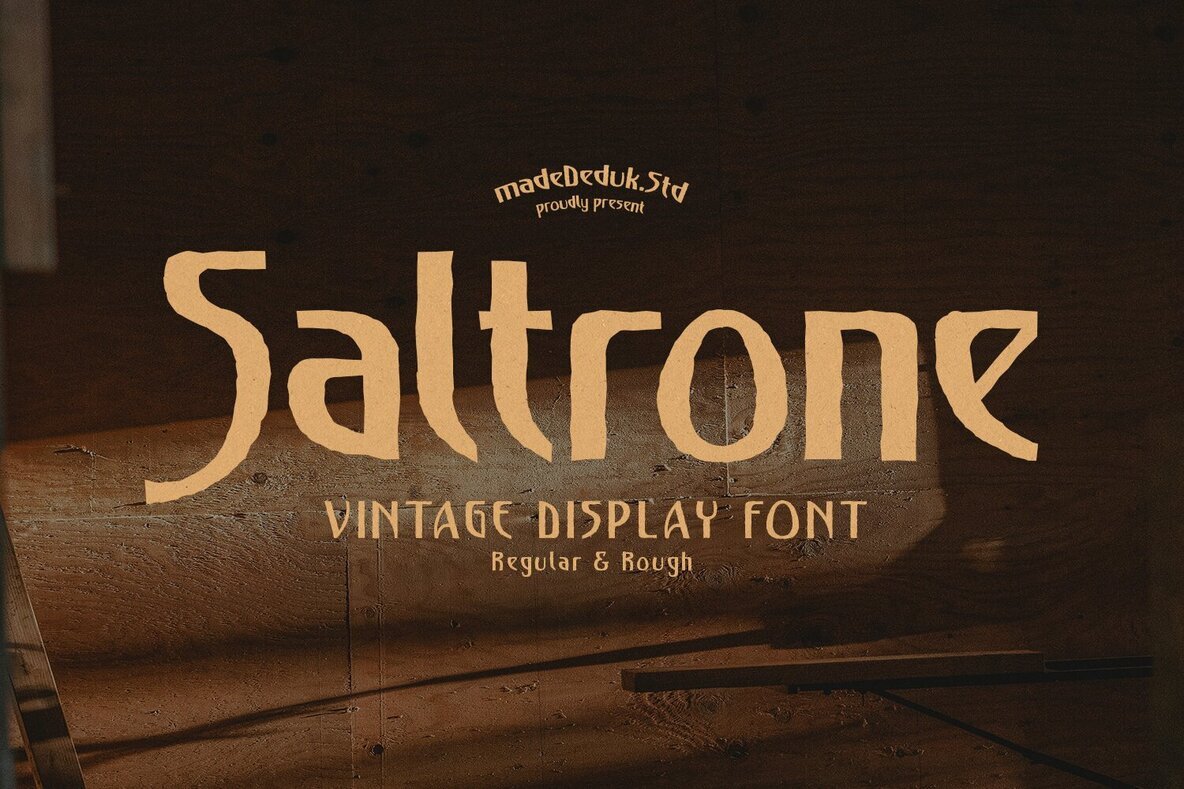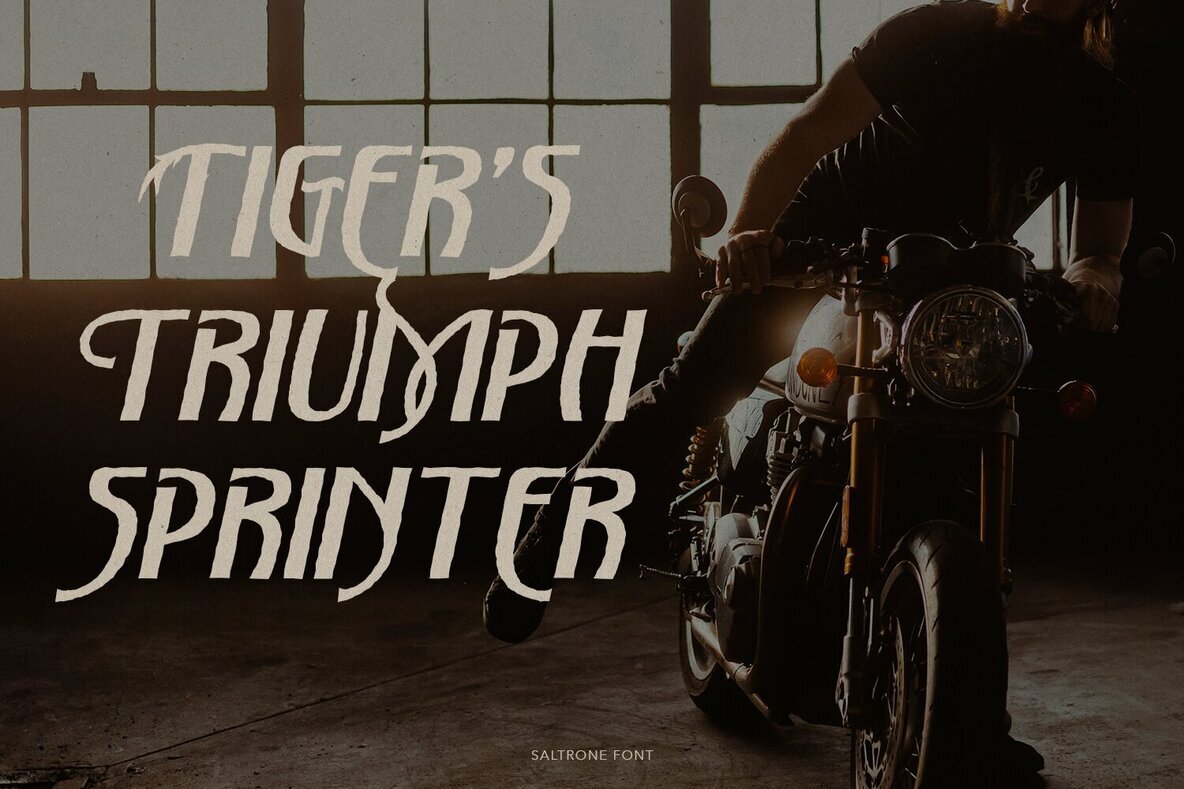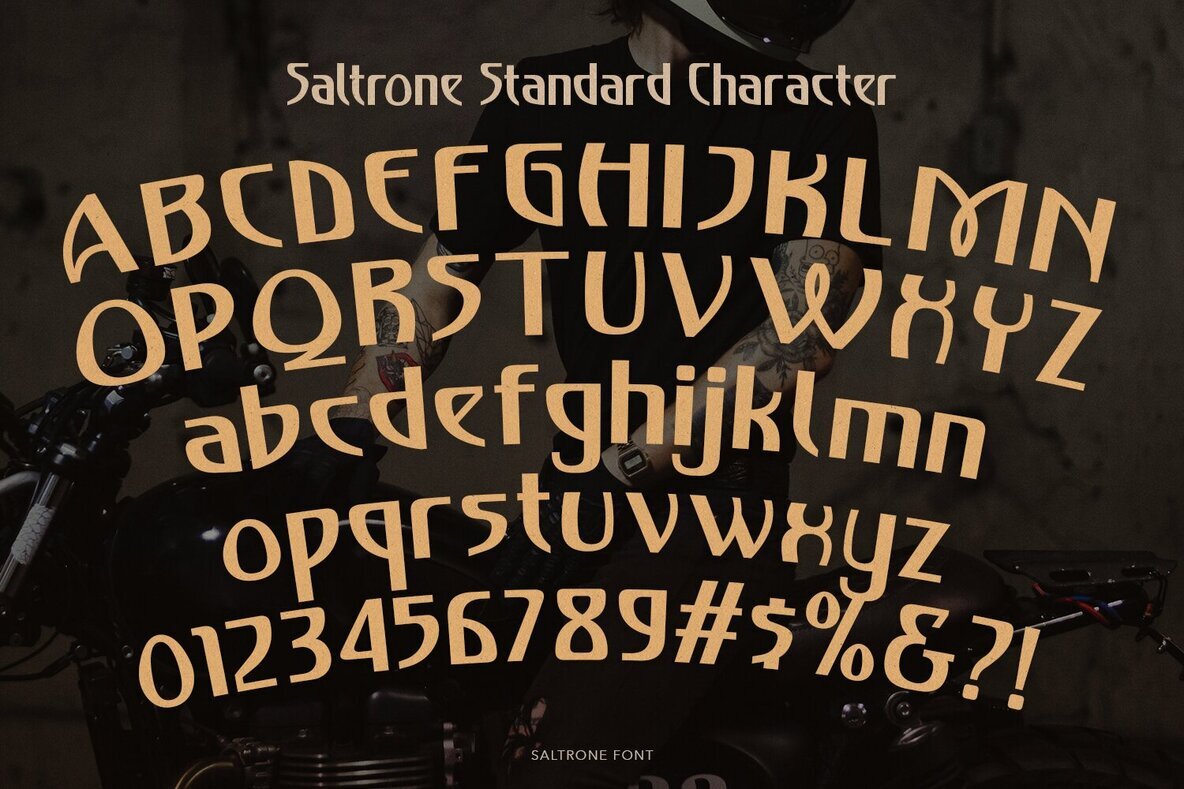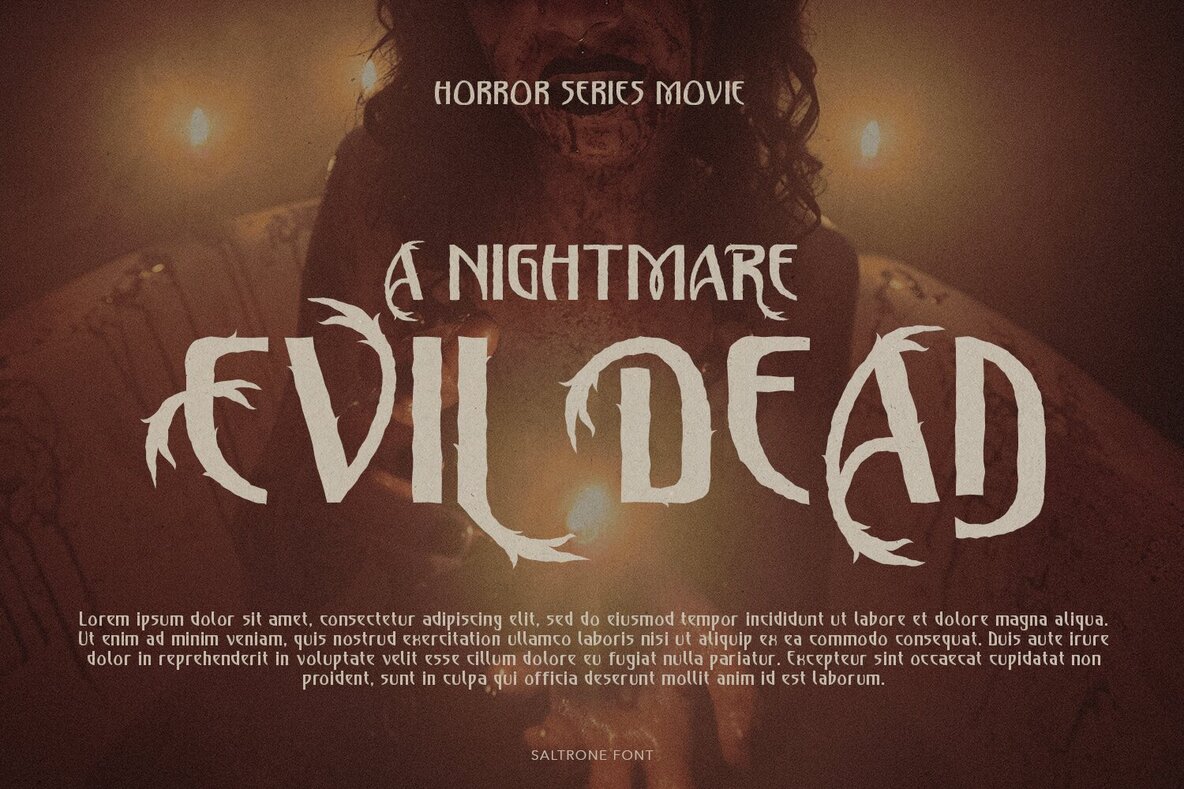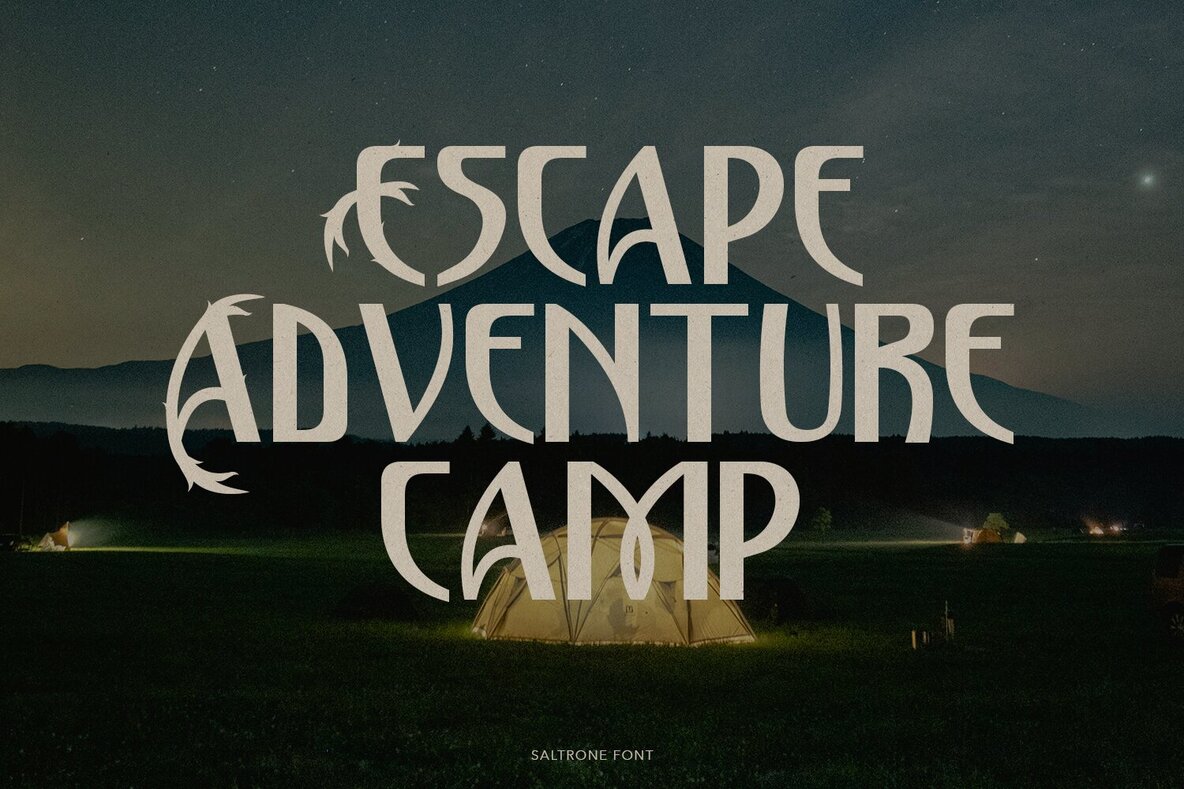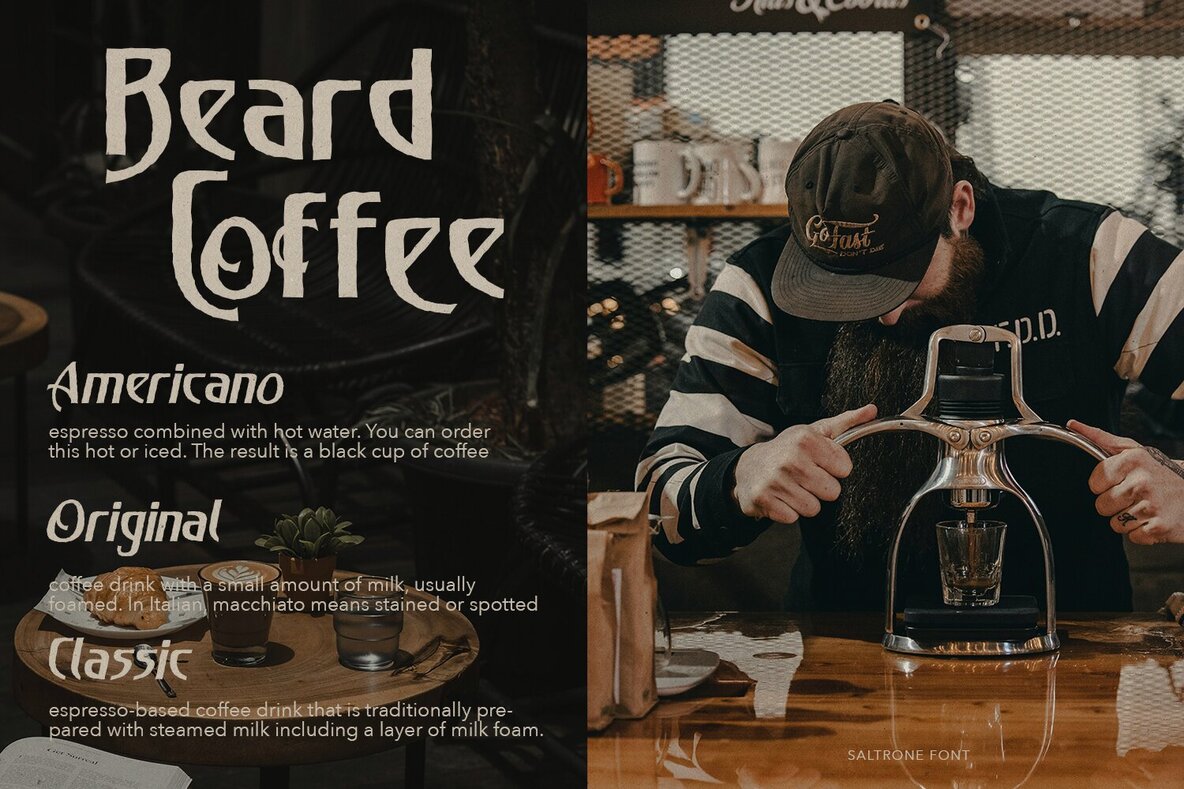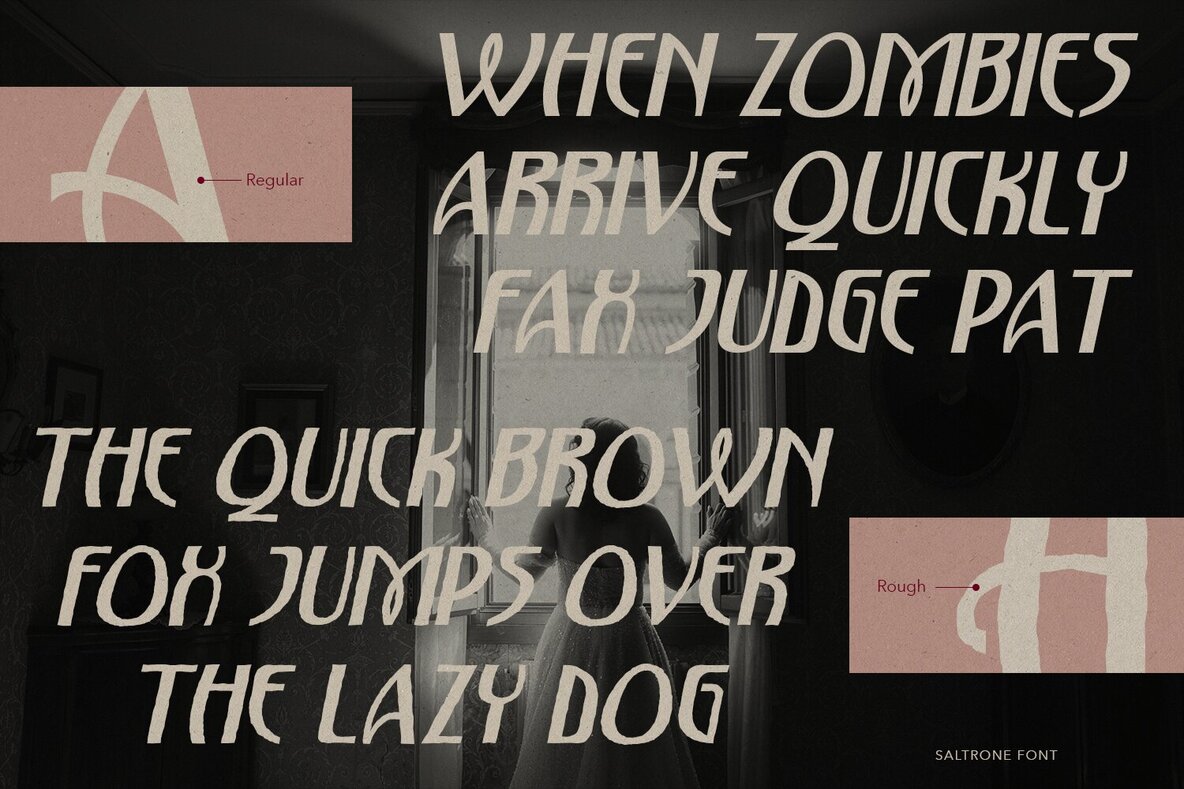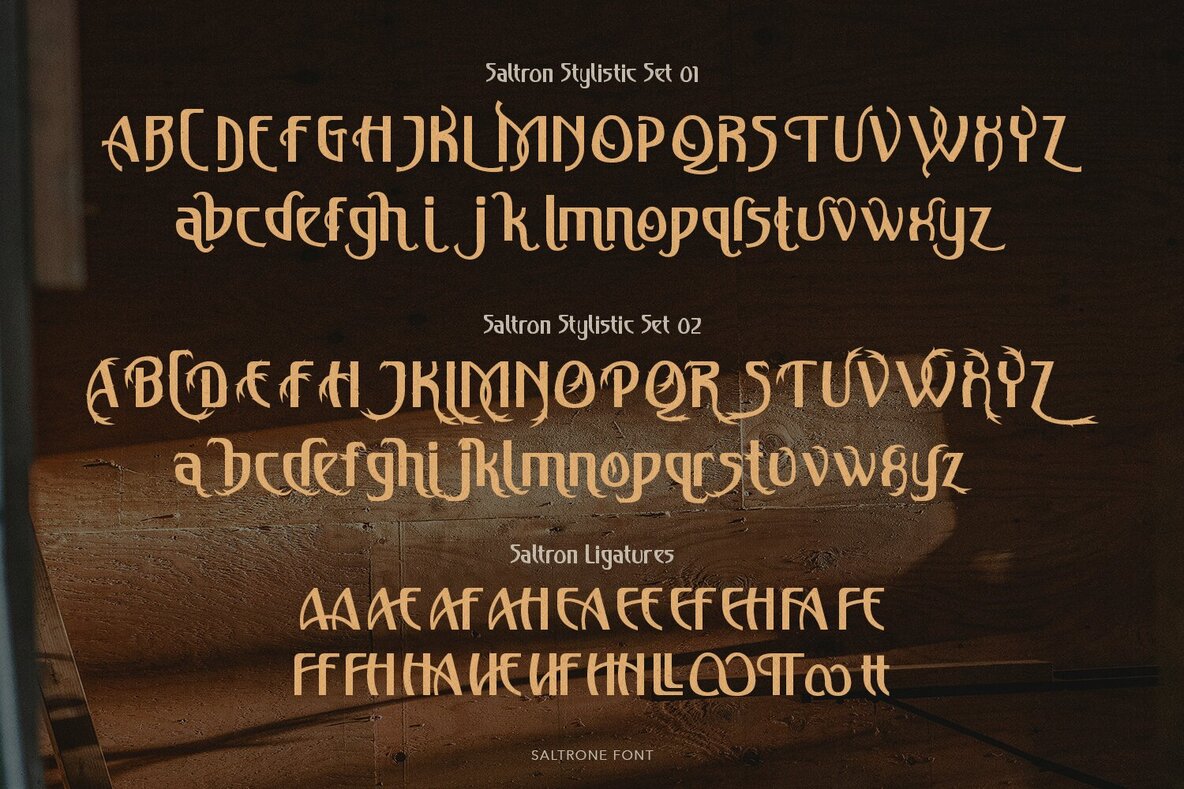
Saltrone Font
Saltrone is a striking display font characterized by its single weight and expressive shapes, making it both legible and visually appealing. The font features an array of stylish alternate characters and ligatures, providing designers with the flexibility to create unique and dynamic text compositions.
Saltrone is versatile and suitable for a wide range of design projects, including logos, branding, packaging, advertisements, apparel, stickers, and music covers. Its distinct style ensures that whatever the application, it stands out with boldness and style. This font is a great choice for designers looking to add a touch of uniqueness to their creative projects.